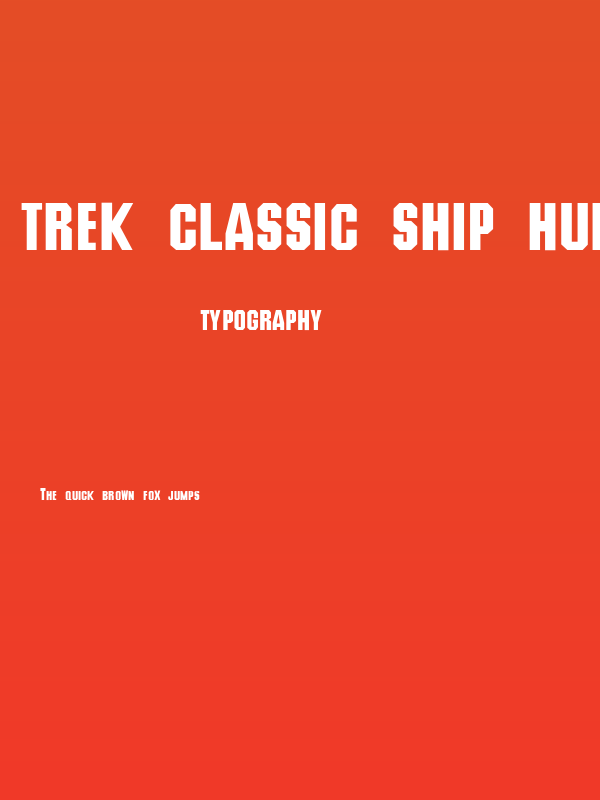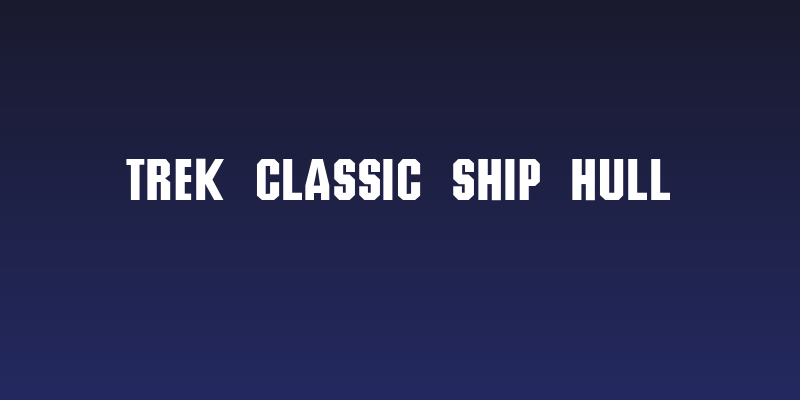
Trek Classic Ship Hull Font
Trek Classic Ship Hull Description
This font features bold, geometric letterforms with a strong presence, making it ideal for impactful designs. The uppercase letters are uniform in height, with sharp angles and straight lines that convey a sense of strength and stability. The numerals are equally bold, maintaining the geometric style with consistent stroke widths. Special characters are designed to match the overall aesthetic, ensuring a cohesive look across all text elements. The font's boldness and clarity make it suitable for attention-grabbing headlines and titles.
| Proposed Projects | Ideal for posters, logos, branding, and any design requiring a bold statement. |